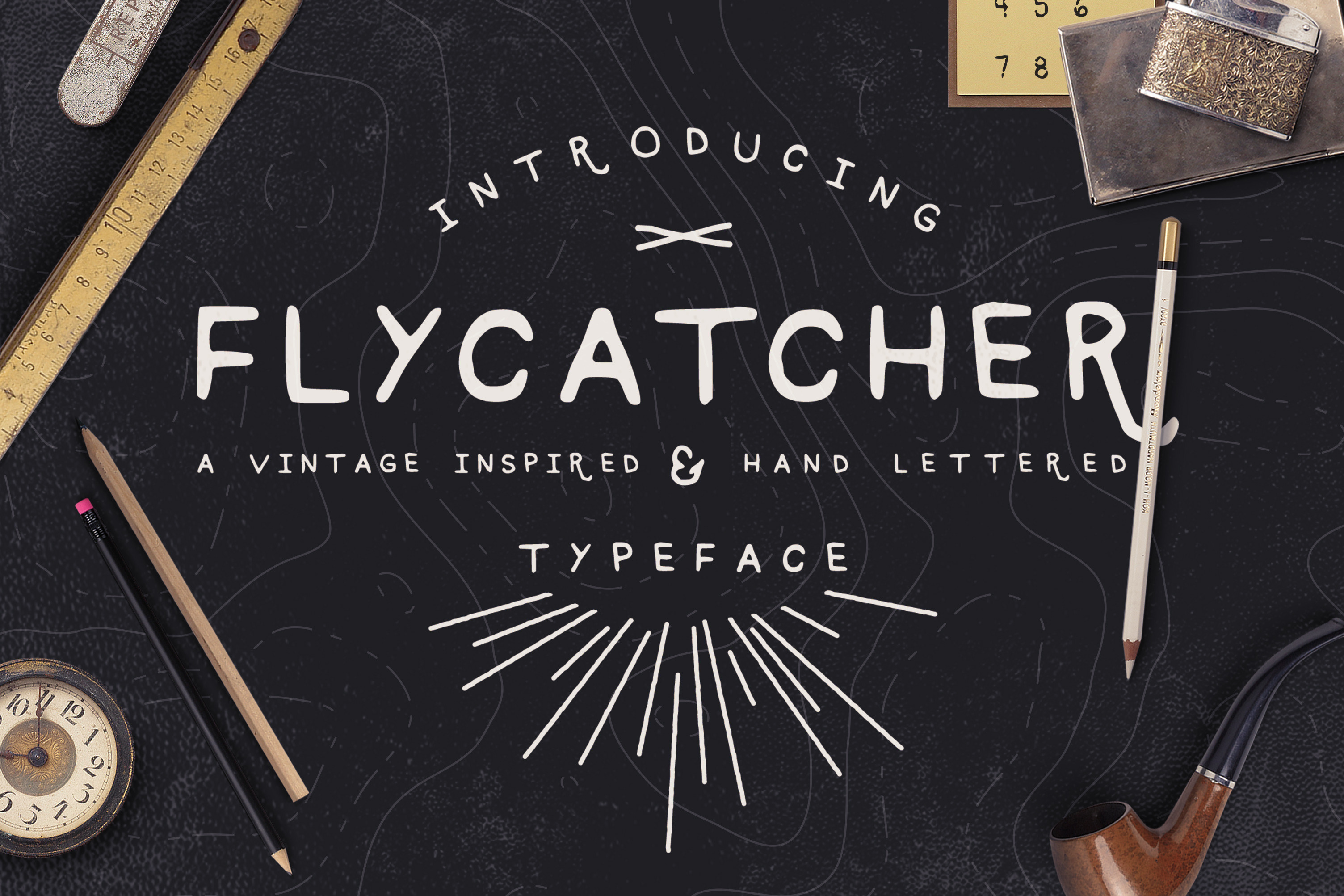
Flycatcher Font
FLYCATCHER is a new hand drawn typeface that I’ve created having noticed a huge demand for fonts of this nature at a reasonable price. It pairs incredibly well with script fonts and gives each piece a touch of character. Apply it to logos, prints, quotes, clothing, and so much more!